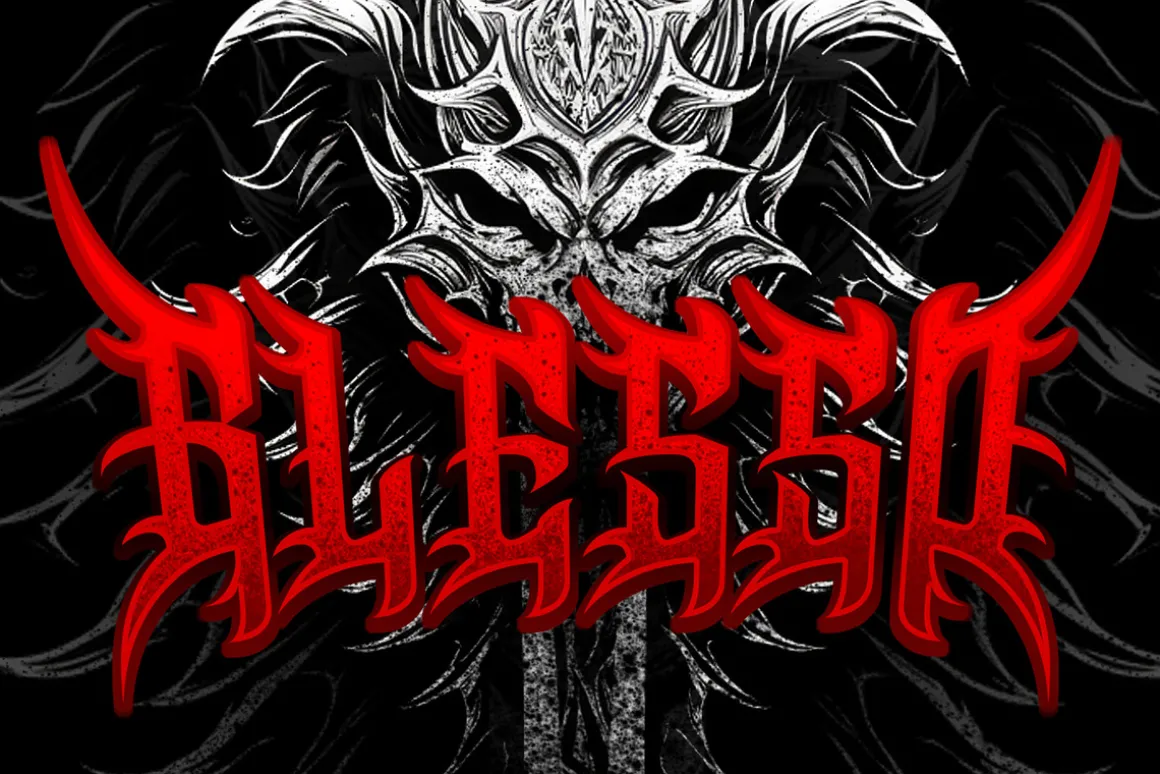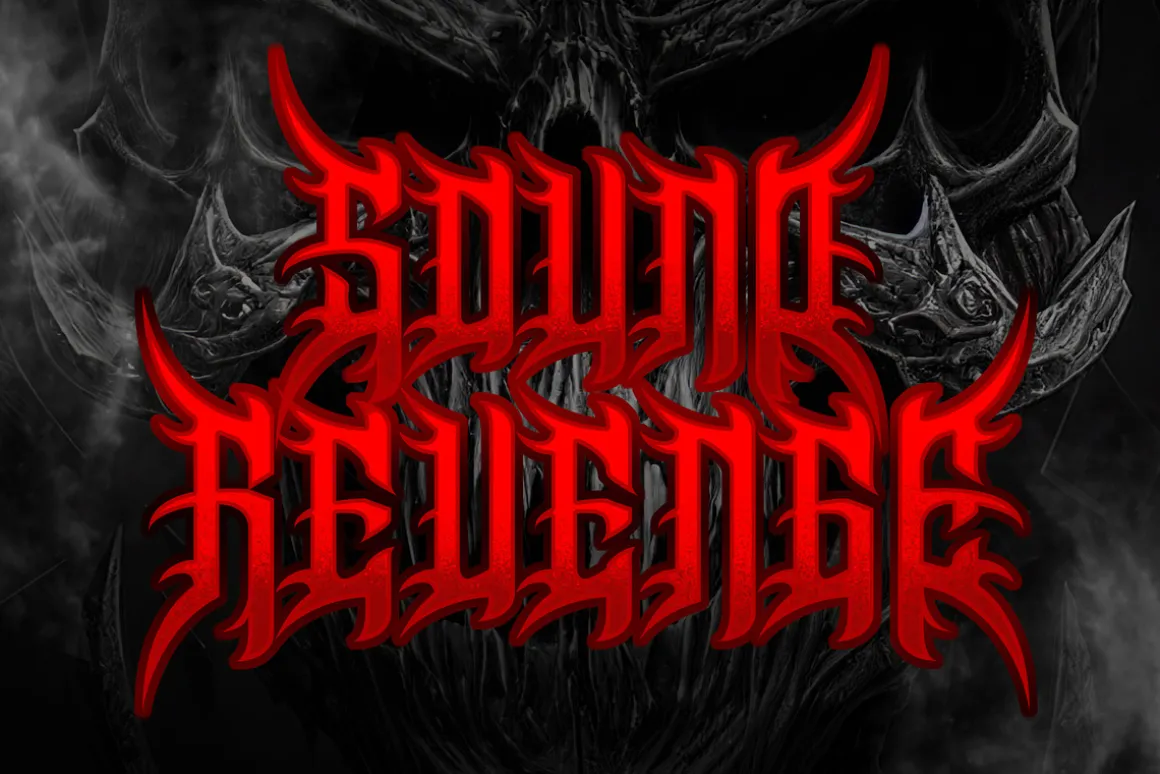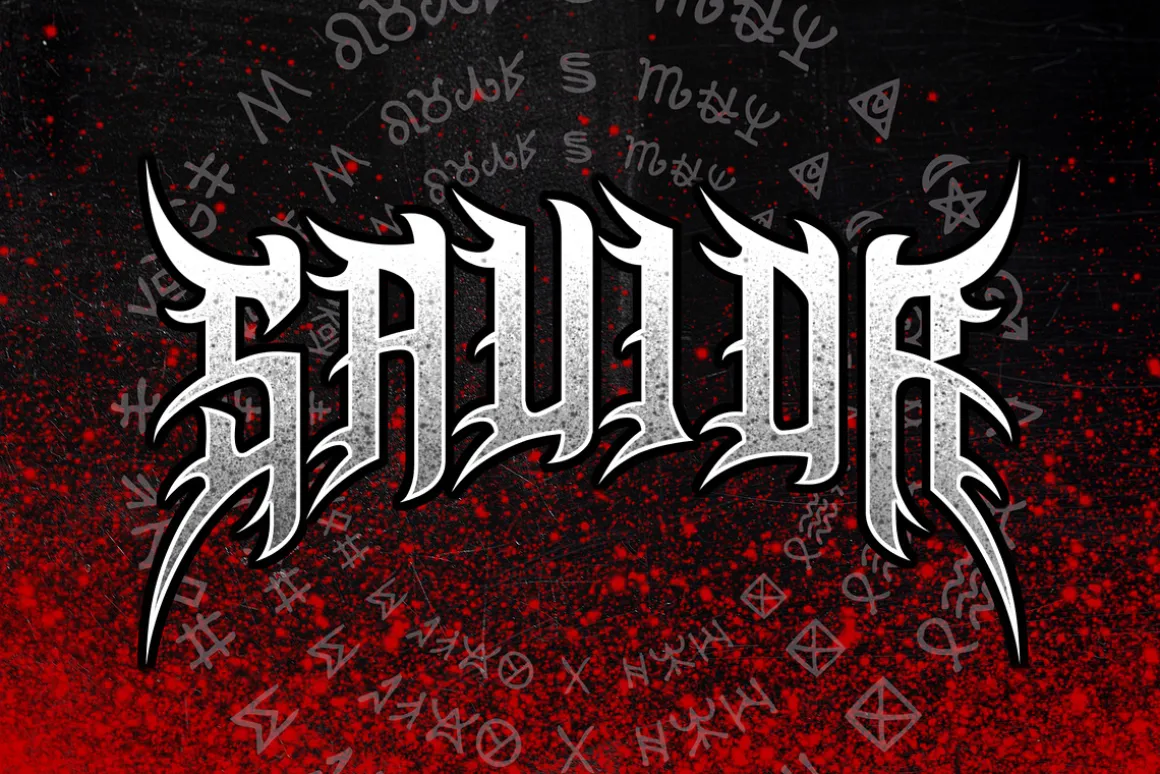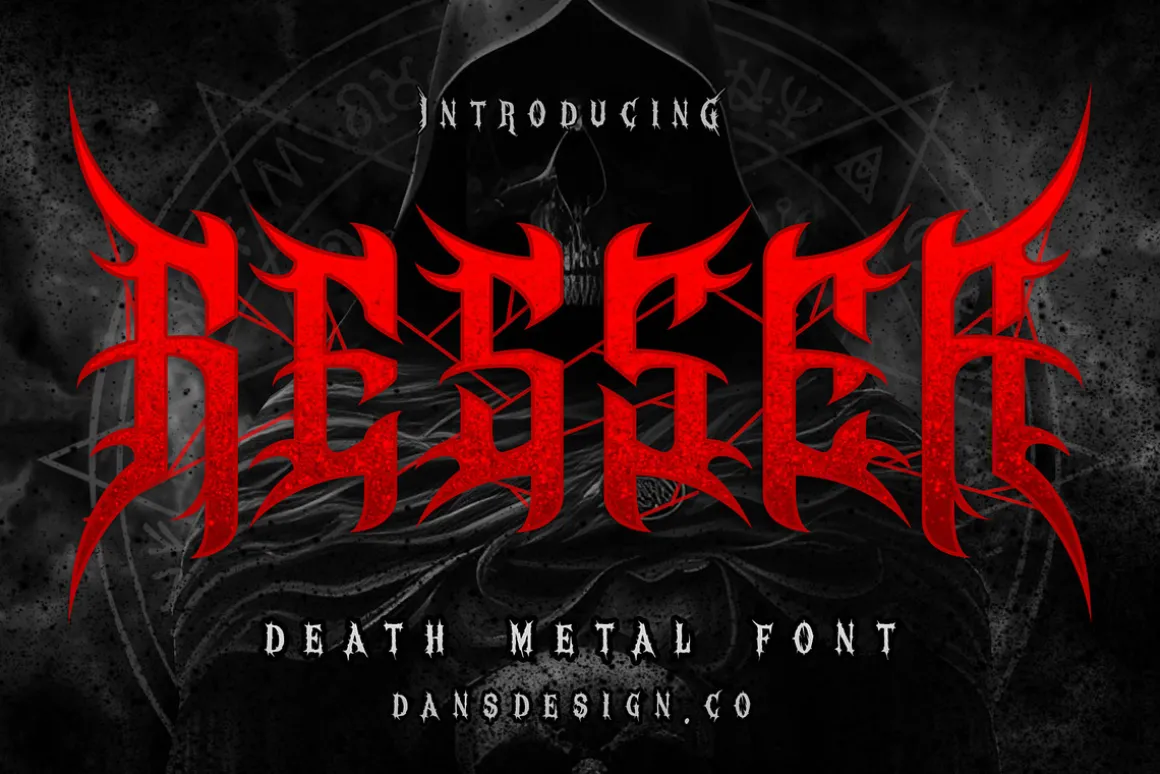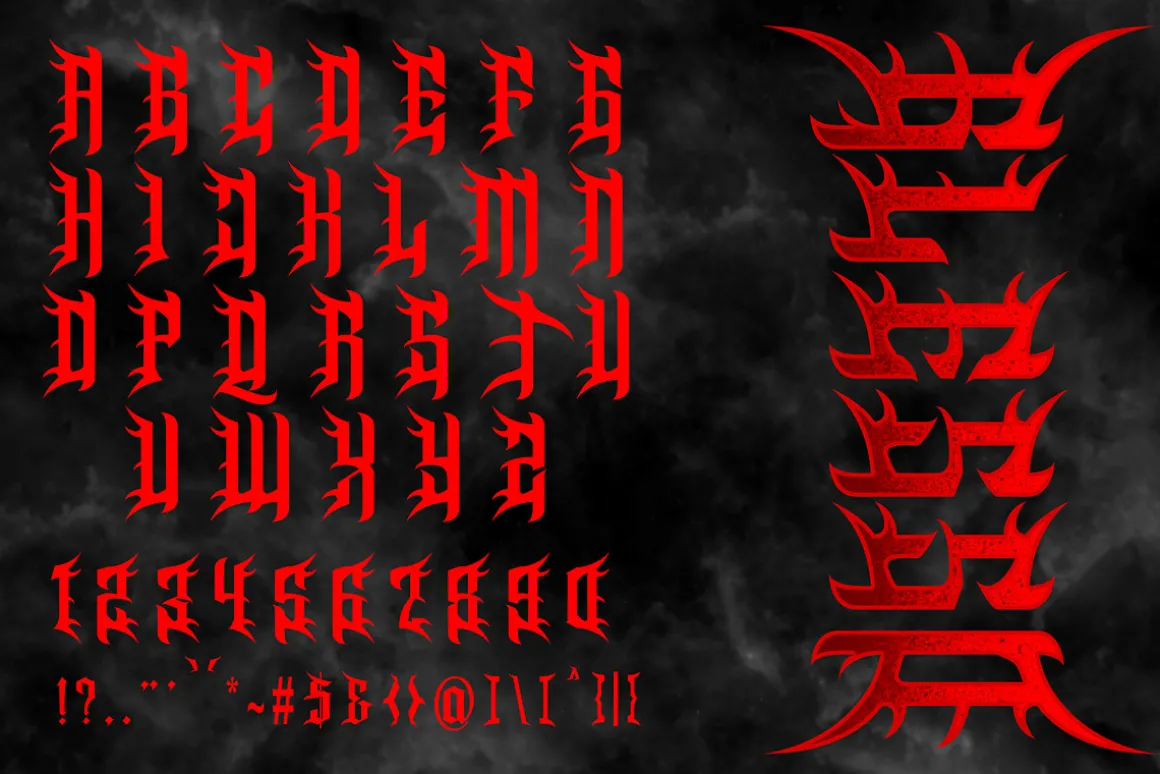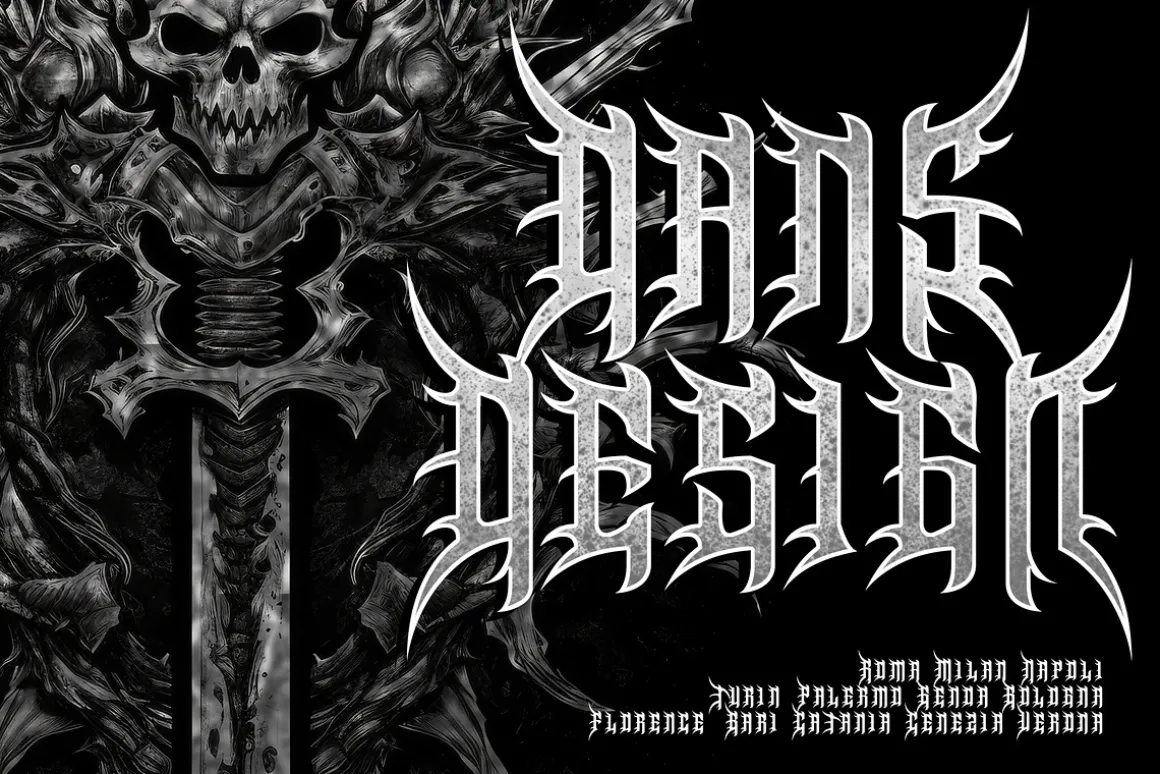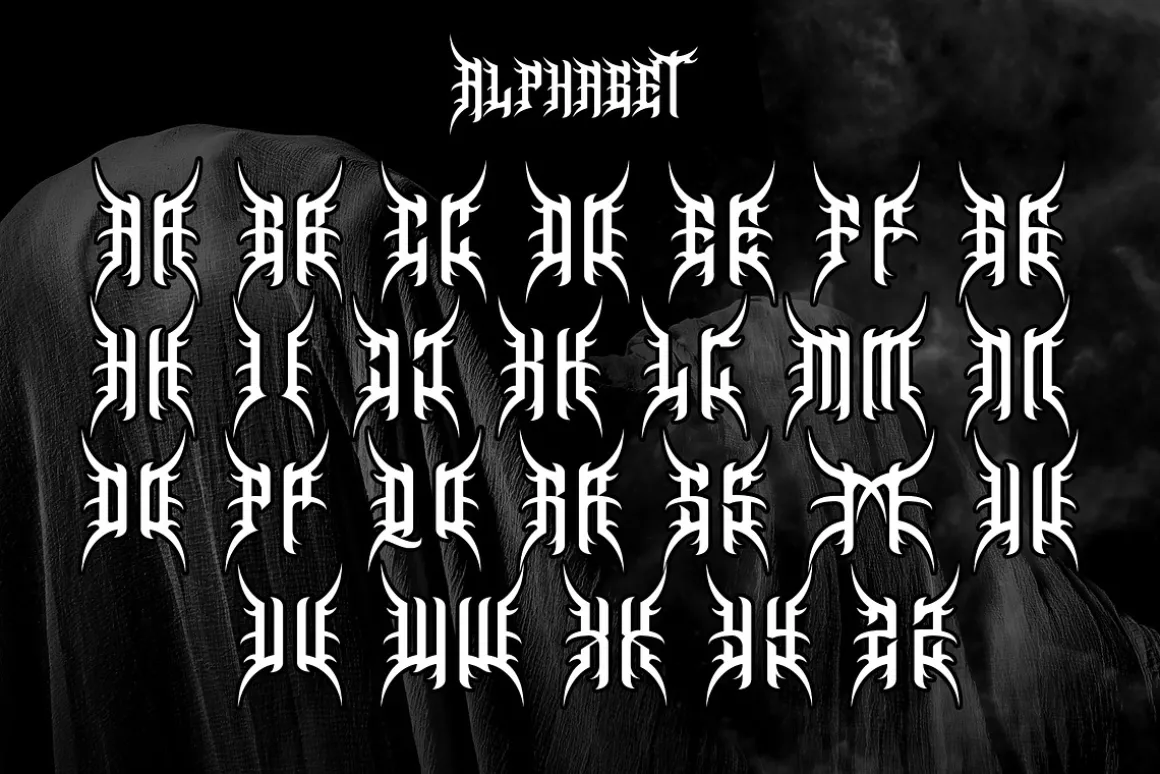
ResseR – Modern Metal Font is a bold and powerful typeface that blends the raw energy of heavy metal with the dramatic elegance of gothic blackletter style. Designed with sharp edges, strong strokes, and aggressive details, this font is perfect for creating metal band logos, music posters, album covers, tattoo designs, streetwear branding, horror artwork, and vintage-inspired projects.
With its modern blackletter aesthetic, ResseR delivers both impact and readability, making it a versatile choice for any creative project that needs a dark, intense, and rebellious vibe. Each letter is crafted to stand out with a dramatic and edgy look, giving your design a unique identity that instantly grabs attention.